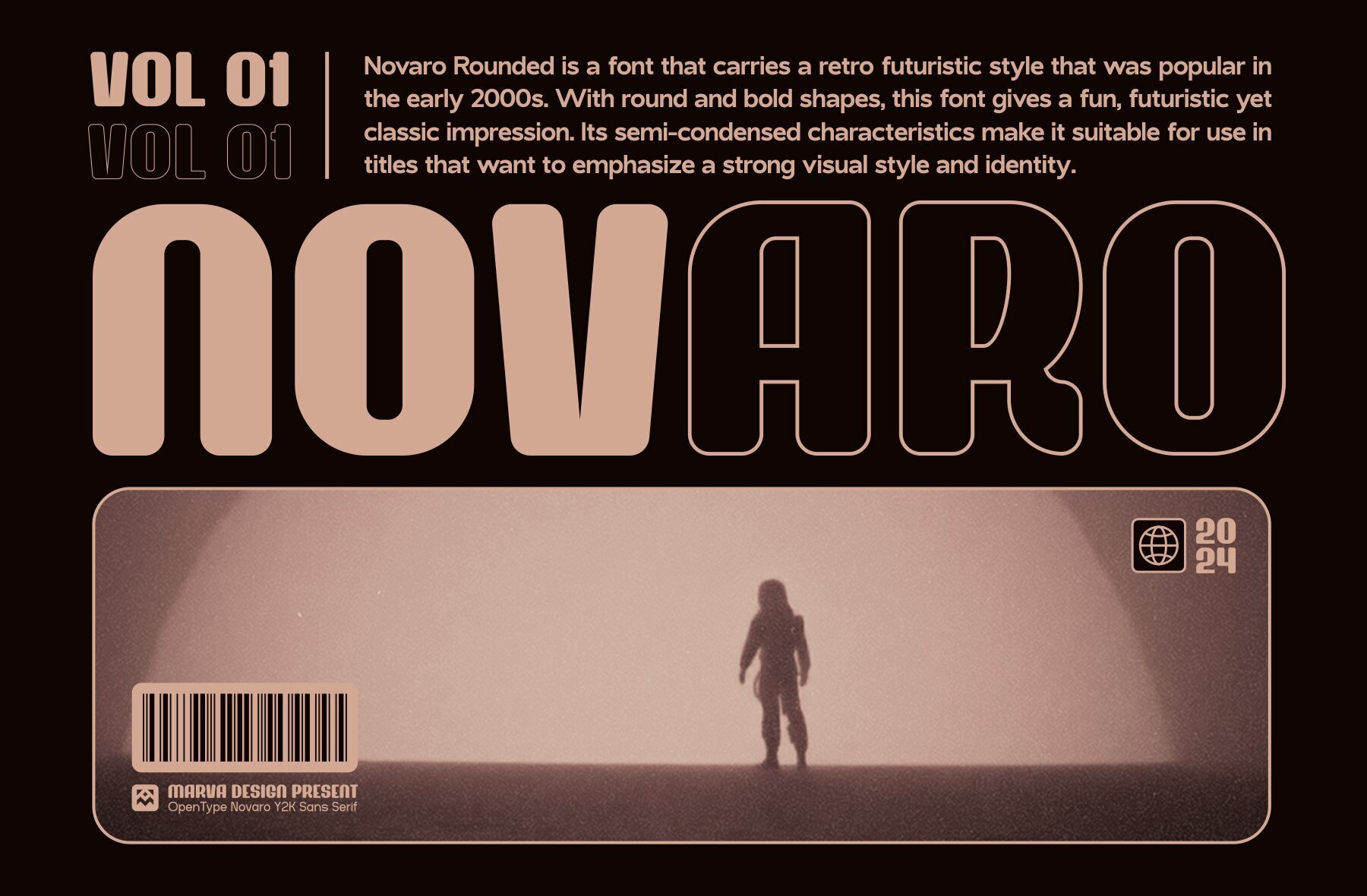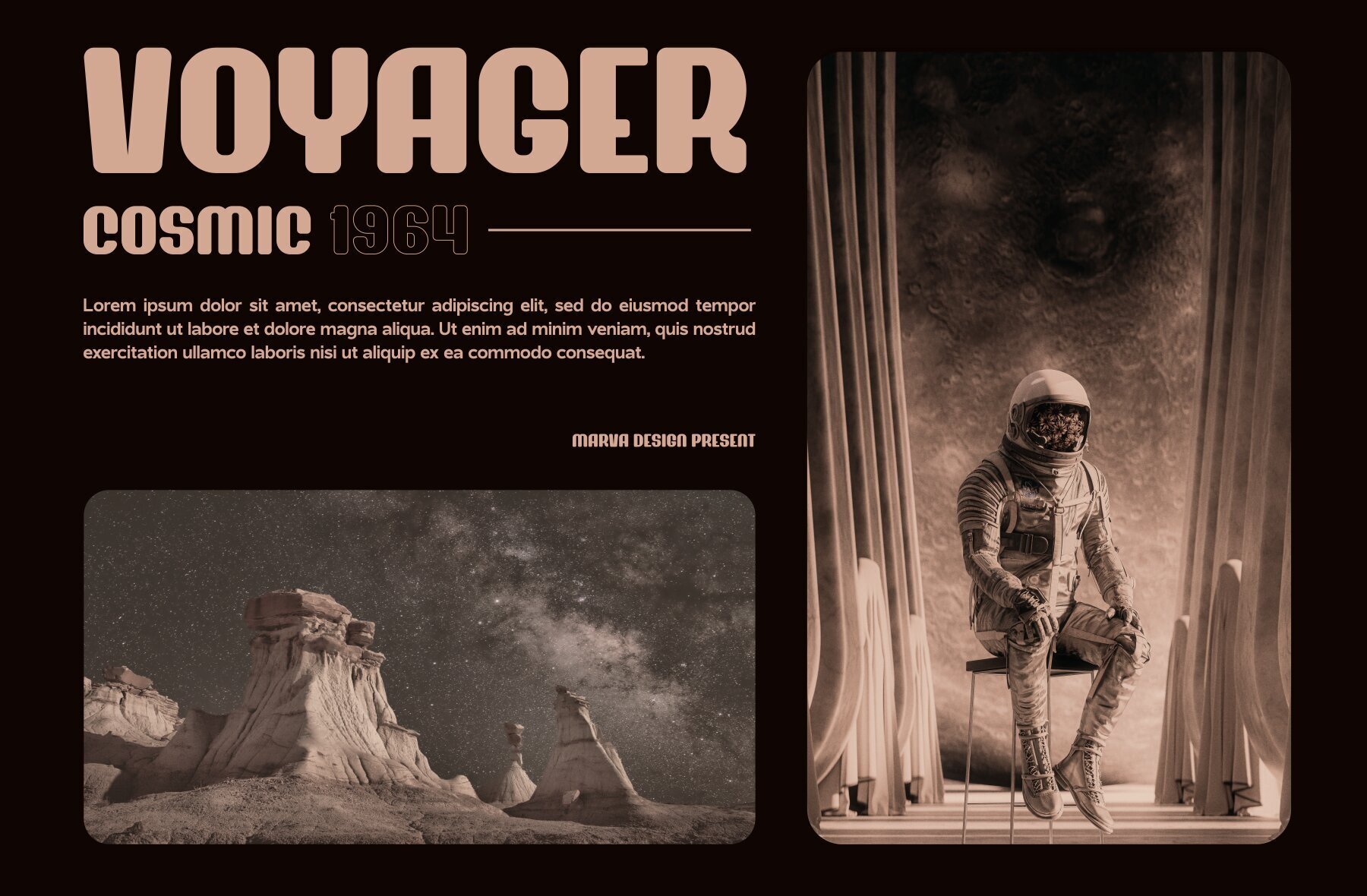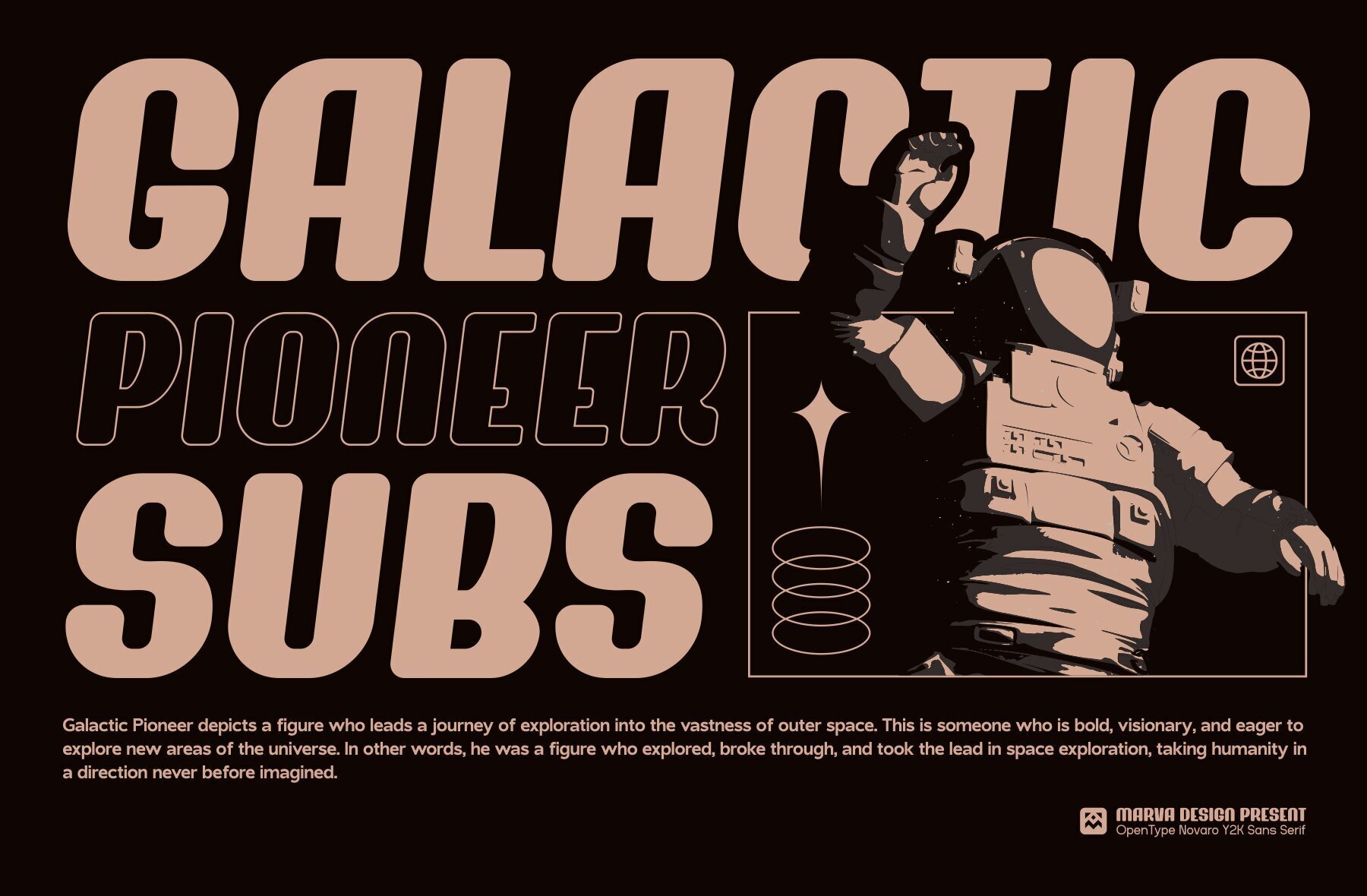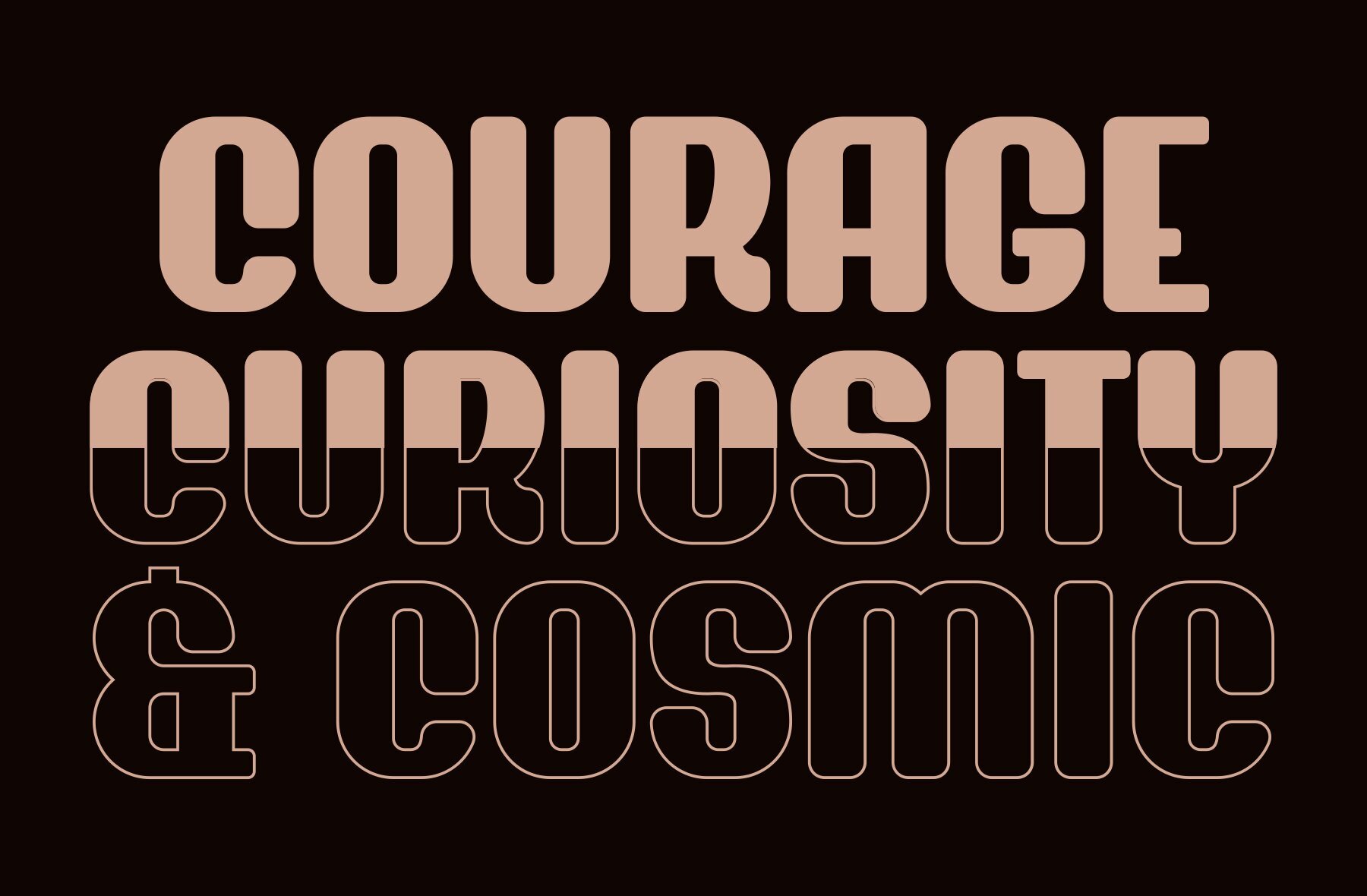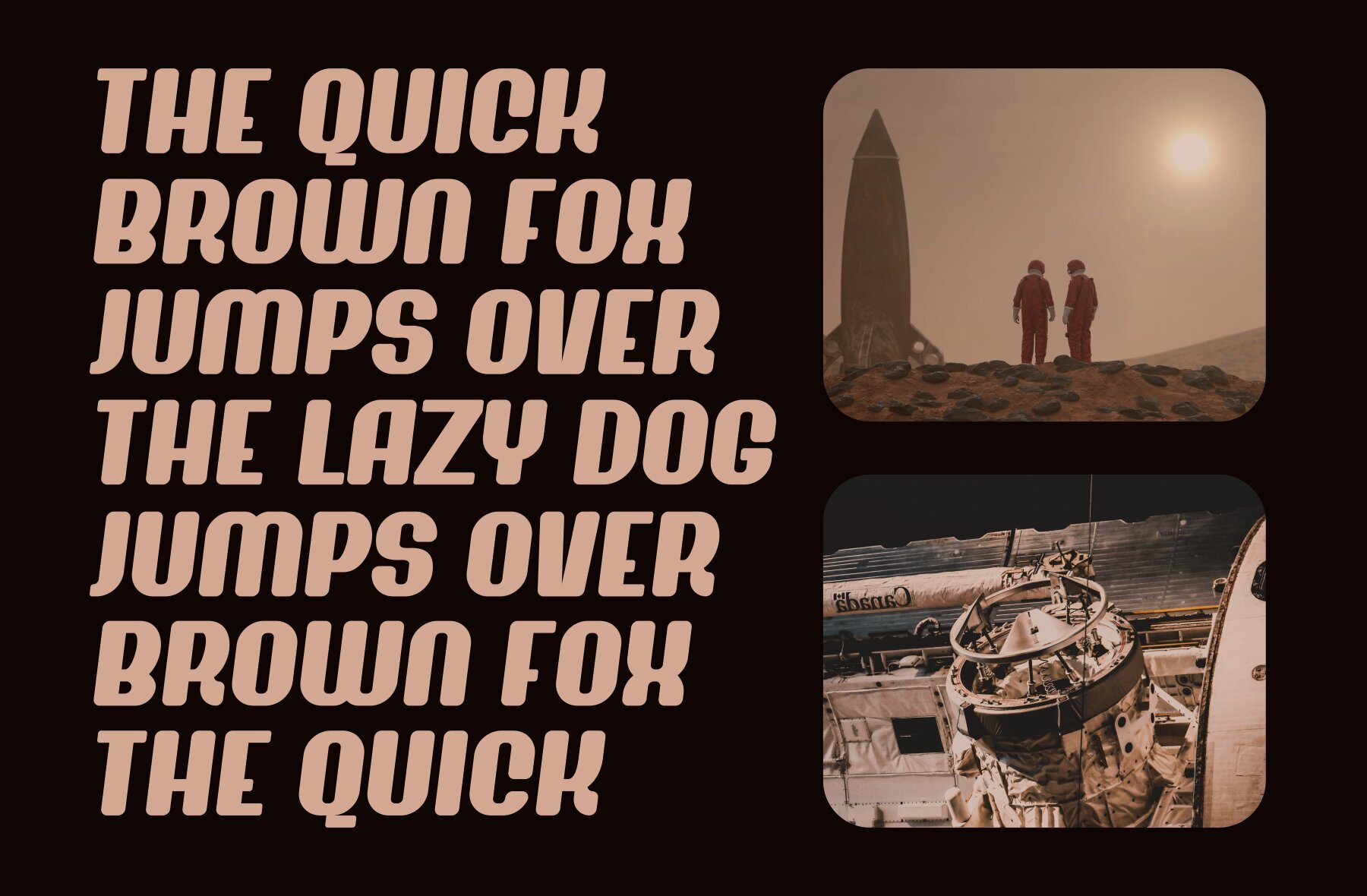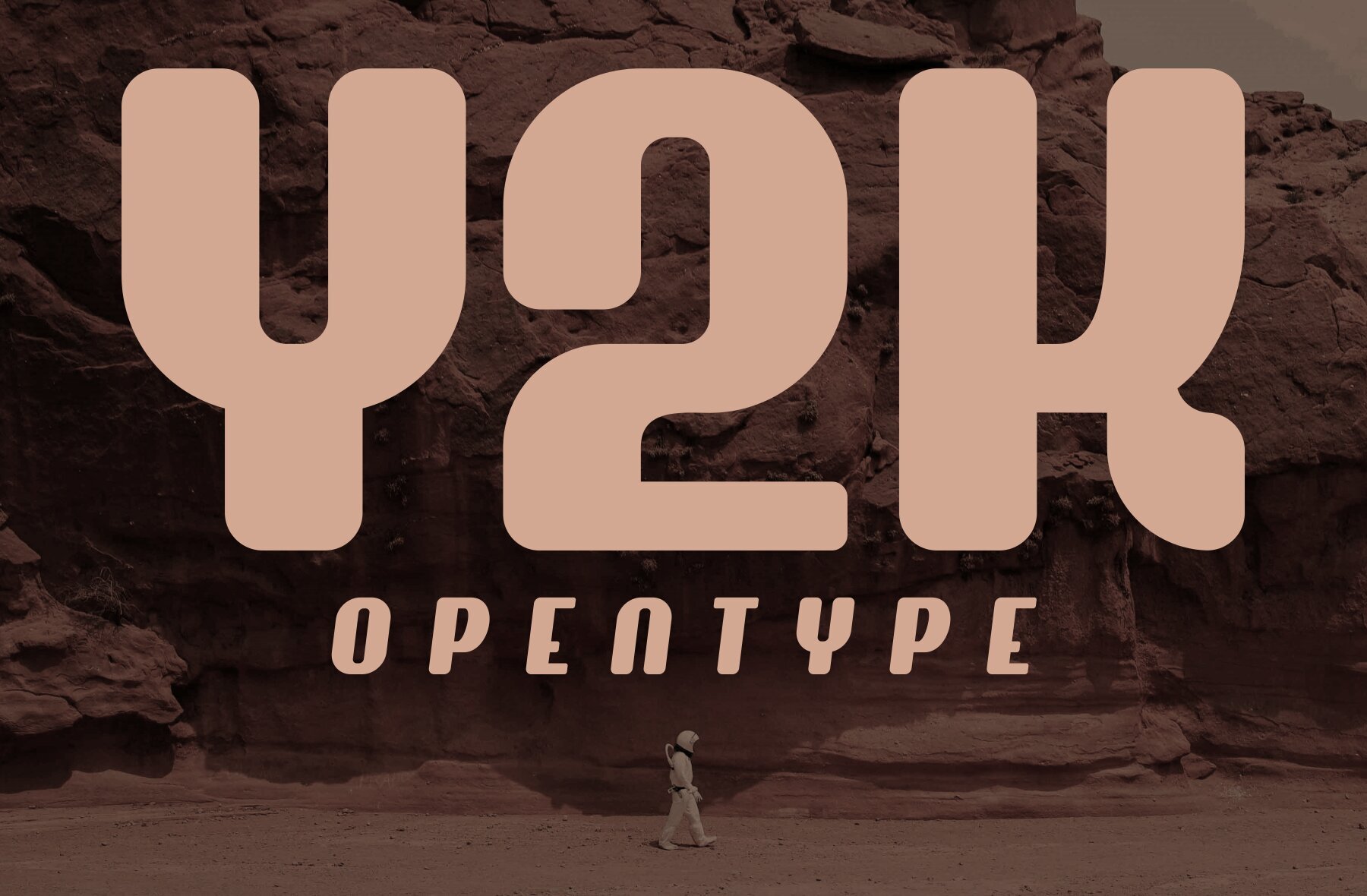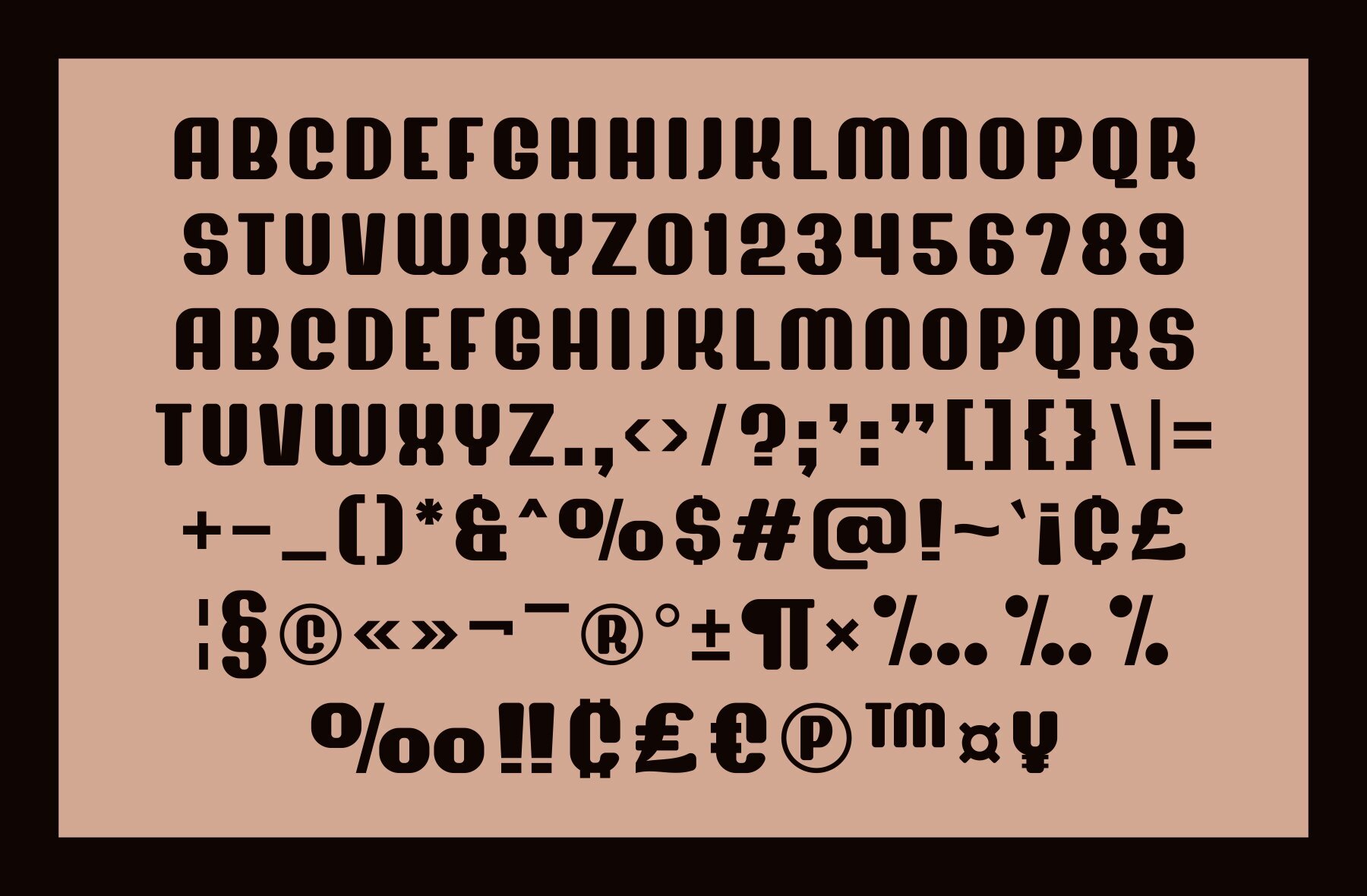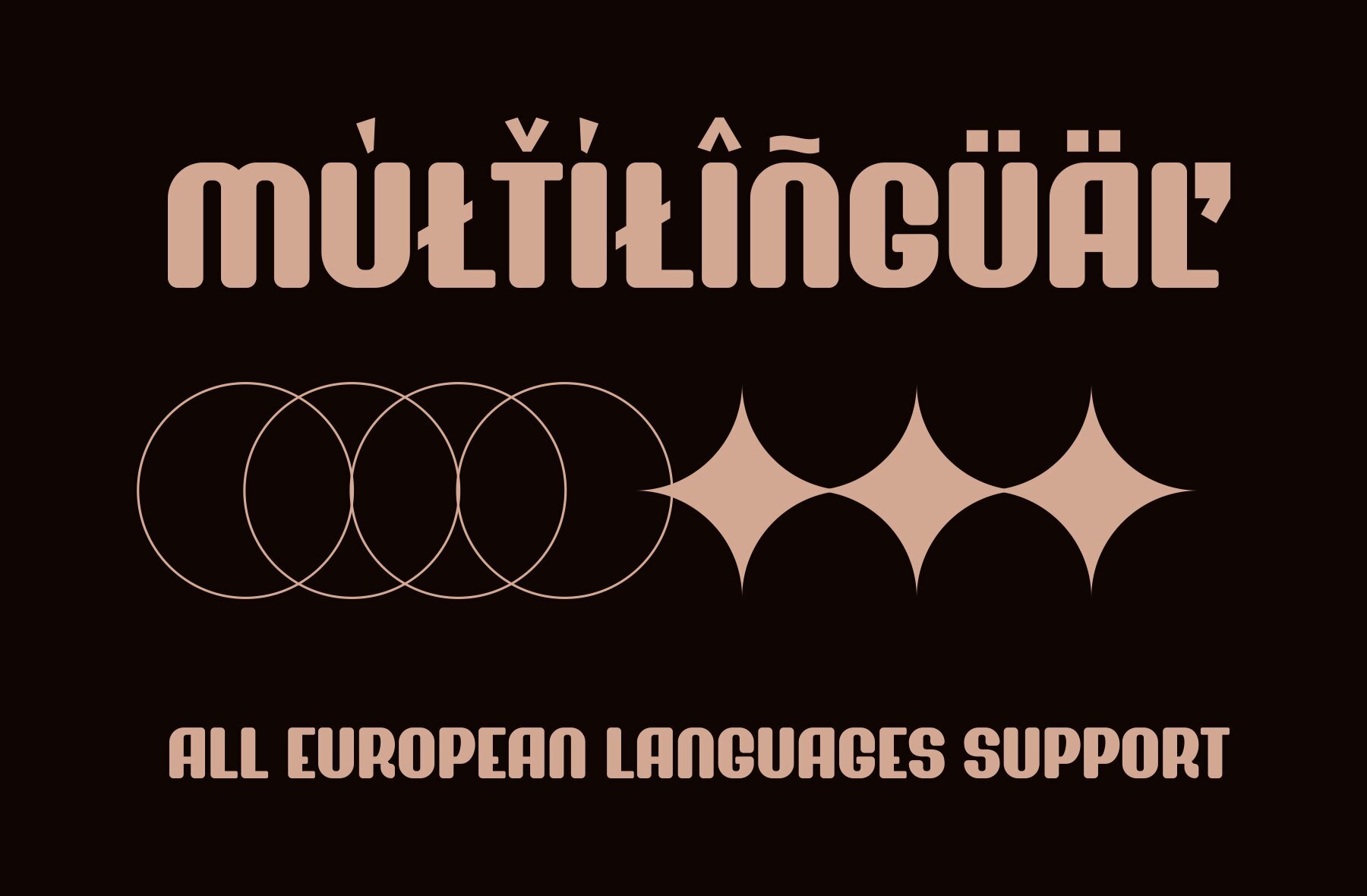
Novaro Font
This typeface is a bold, modern sans-serif with a geometric structure, making it highly readable and impactful for display purposes. Its clean and minimalist design, combined with a solid presence, makes it ideal for modern branding, advertising, and digital interfaces where clarity and character are required.